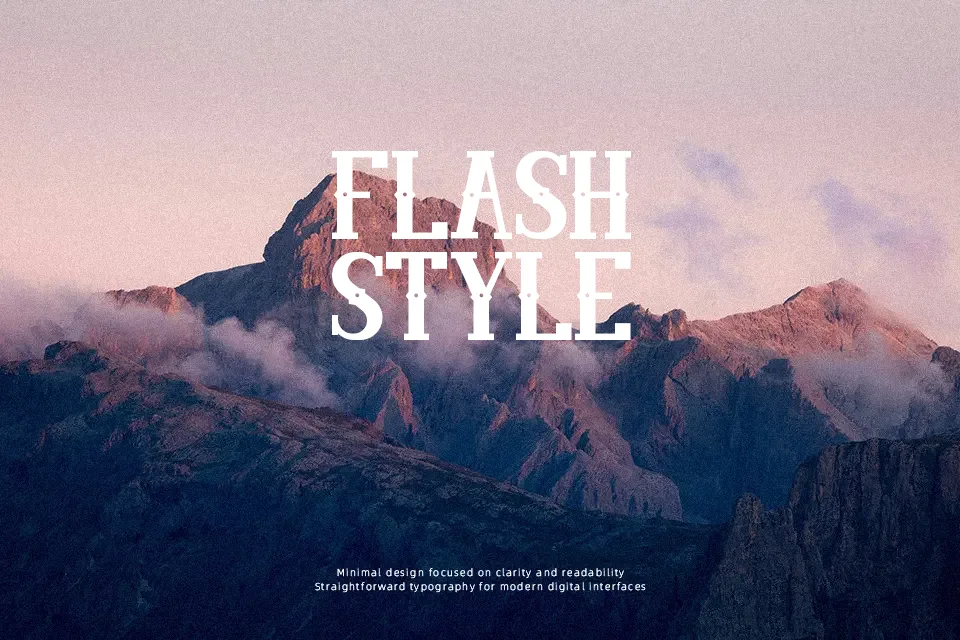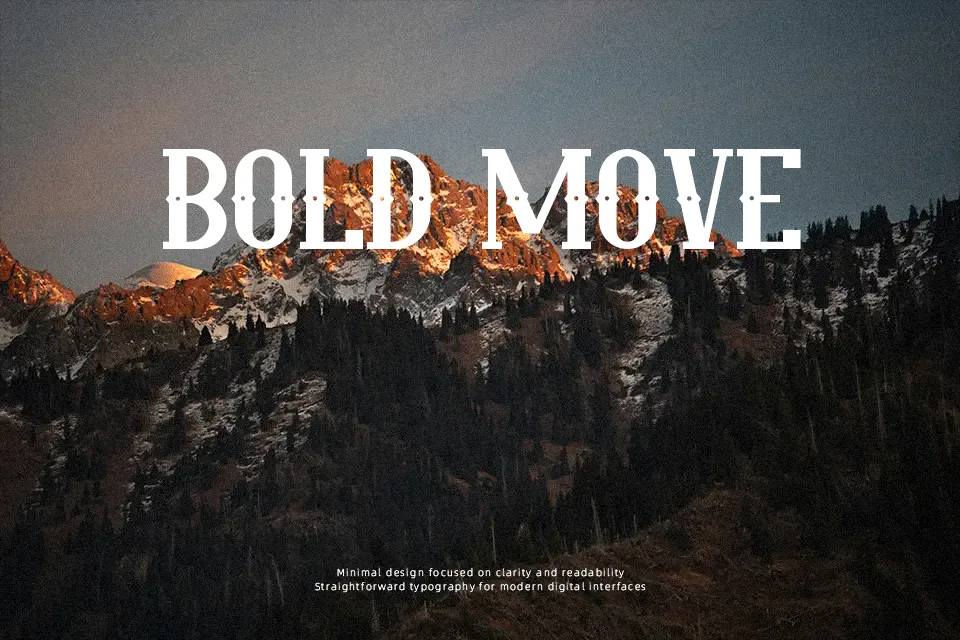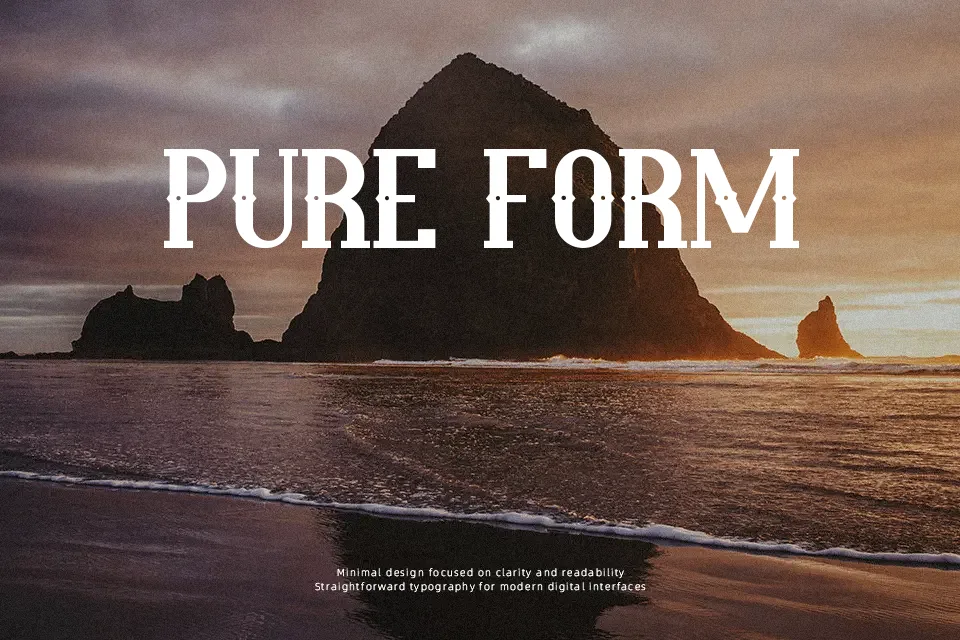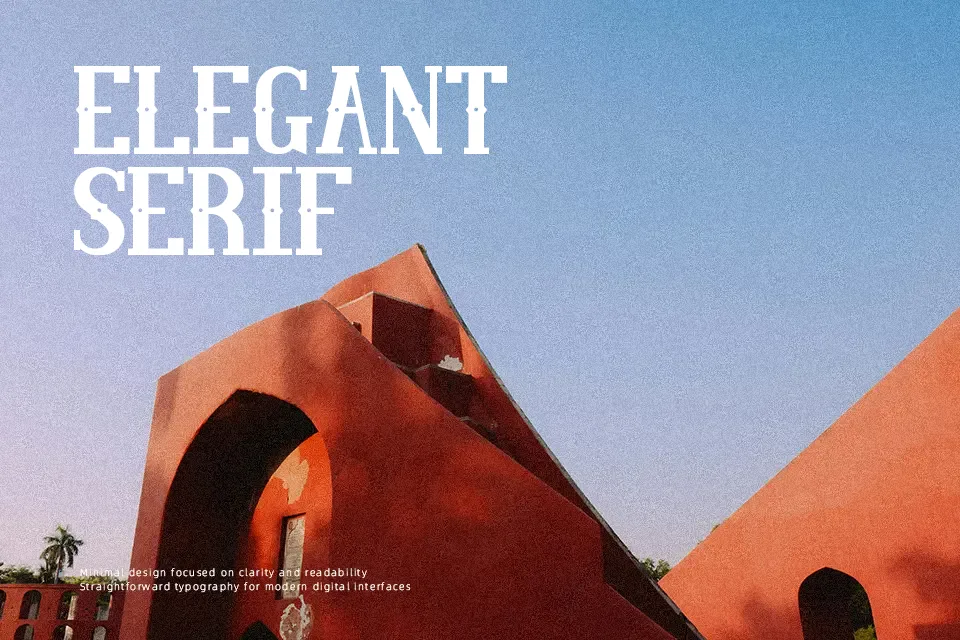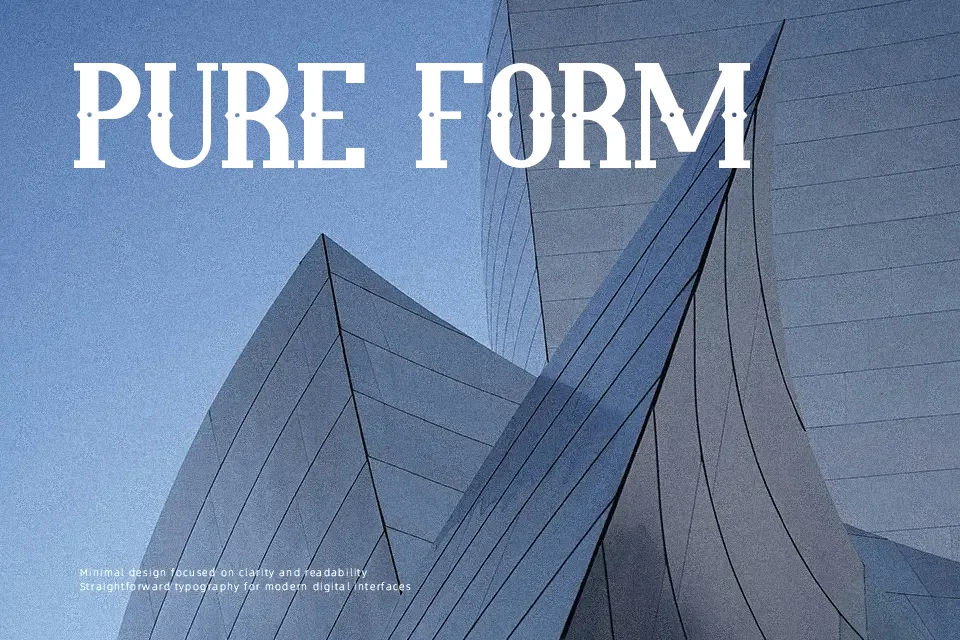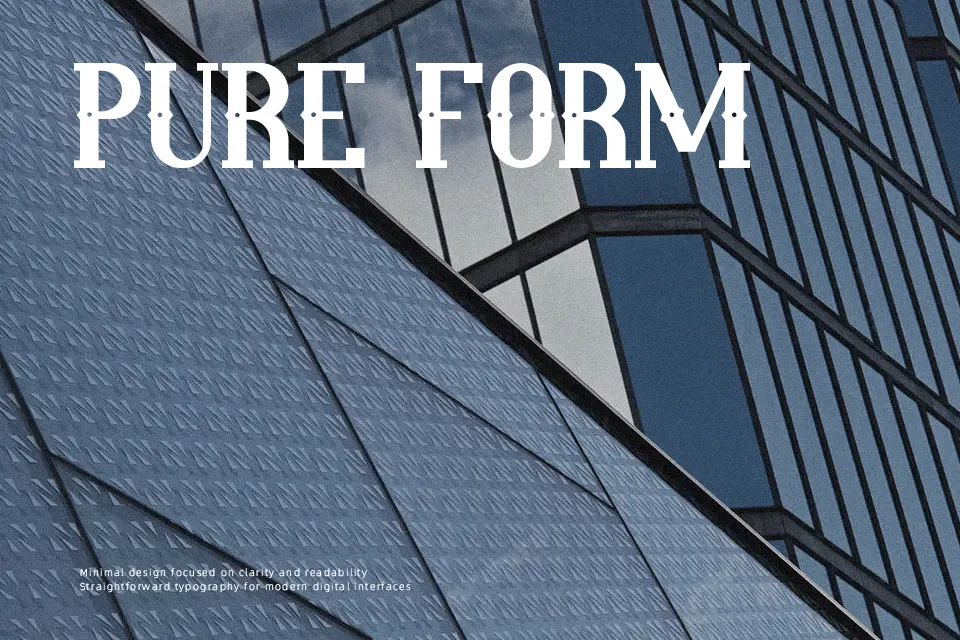
Circus World Font
Circus World Font showcases heavy stroke weights, prominent slab terminals, and distinctive center spurs that evoke traditional fairground typography. The letterforms feature broad horizontal proportions with generous interior counters, maintaining recognizable shapes at prominent scales. Moderate character spacing prevents ornate decorative spurs from colliding in short titles. While the typeface commands attention in entertainment branding, festival billboards, and amusement park signage, the intricate silhouettes compromise legibility when rendered in dense body text or compact interface captions. The bold contours ensure crisp visibility in outdoor display settings, yet the heavy visual weight tends to overpower subtle layout compositions.
Best For: vintage carnival posters,amusement park signage,retro entertainment branding,fairground event banners
Not Ideal For: continuous paragraph text,small interface labels,technical documentation,dense book layout
Perfect for branding, headline, and packaging, with a bold and decorative style.